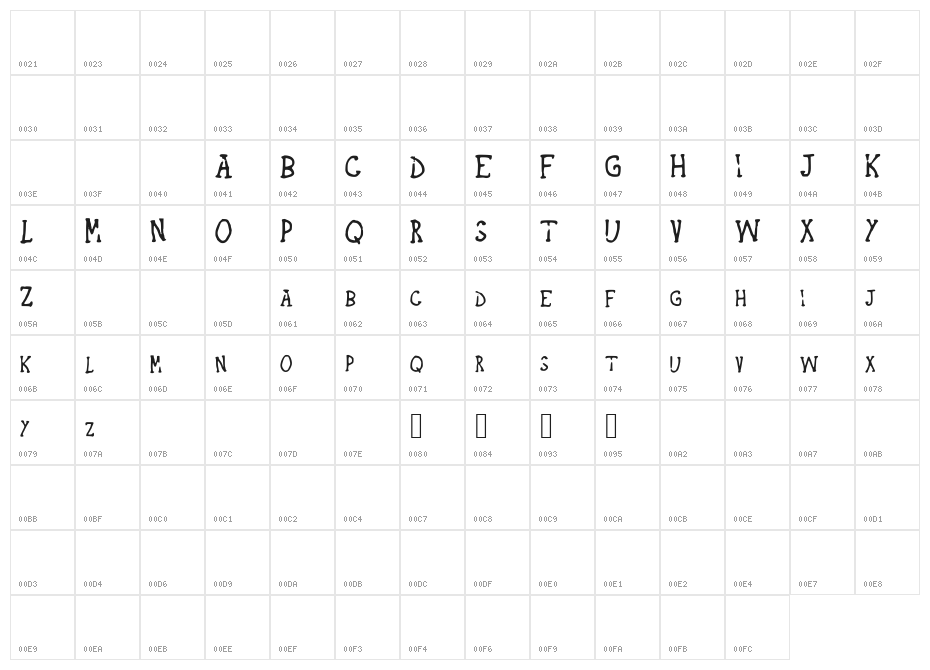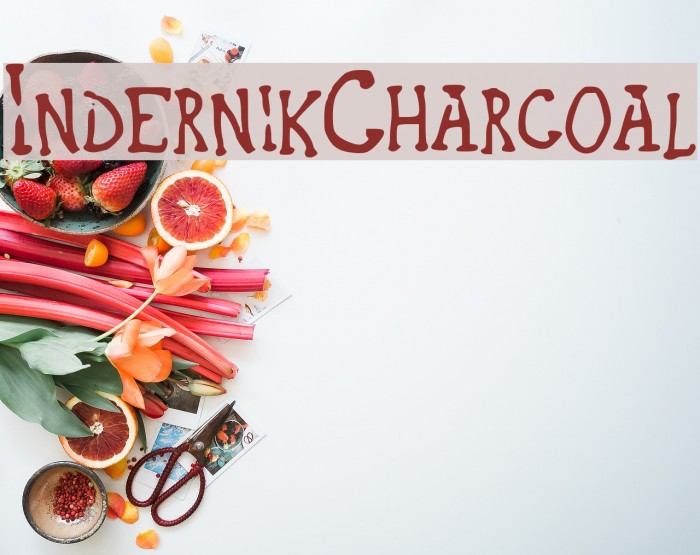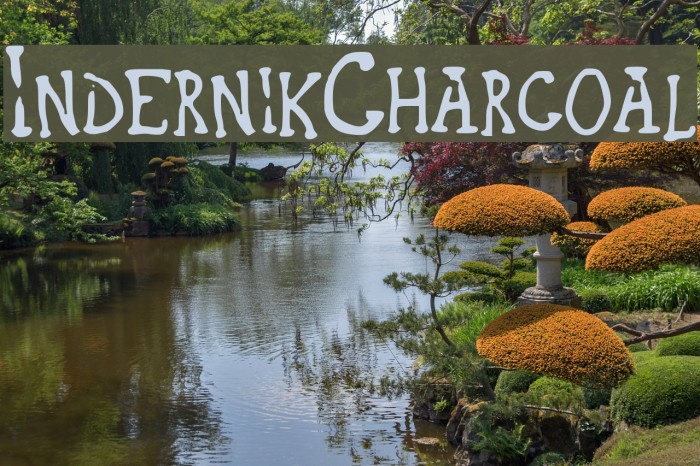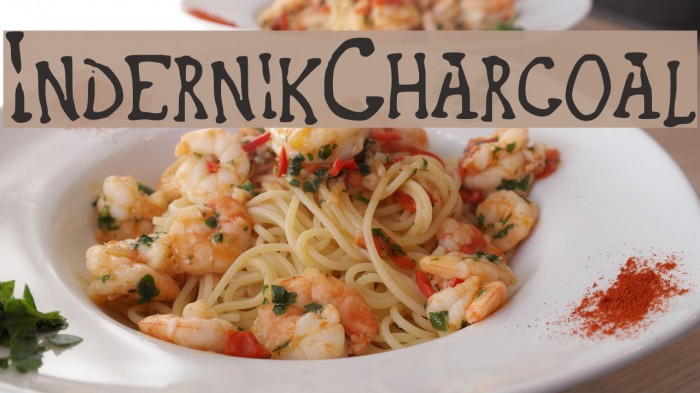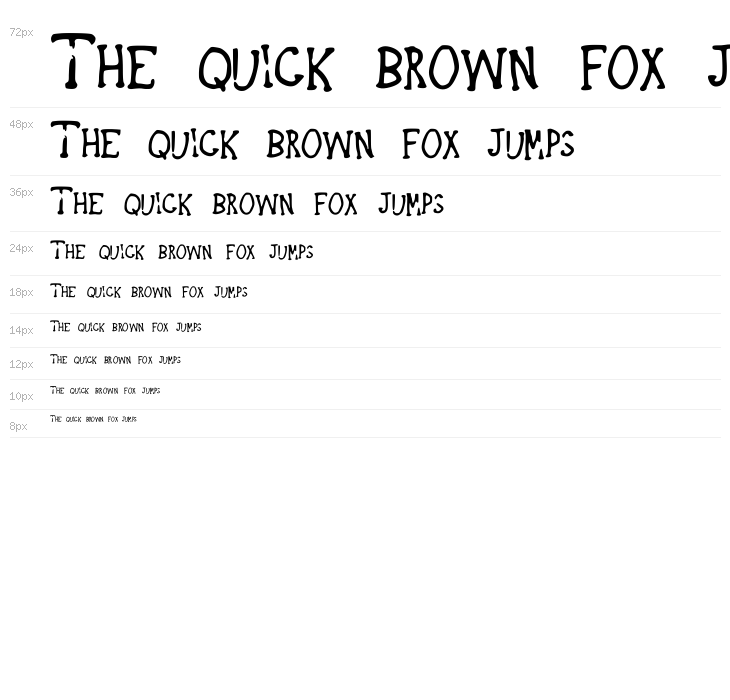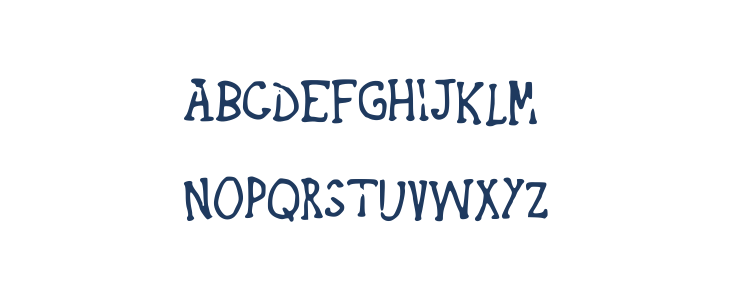
Indernik_Charcoal Font
Indernik_Charcoal Description
This font features a bold and expressive style with a hand-drawn appearance, reminiscent of charcoal sketches. The characters have irregular edges and varying stroke thickness, giving them a dynamic and artistic feel. The uppercase letters are prominent and slightly condensed, while the lowercase letters maintain a consistent style with a playful touch. The numbers and special characters follow the same design, ensuring uniformity across all glyphs. This font's unique aesthetic makes it stand out, suitable for creative and informal projects.
| Overall Style | Artistic, Hand-drawn |
| Use Case | Headlines, Posters, Creative Branding |
| Proposed Projects | Ideal for artistic projects, posters, album covers, and creative branding. |